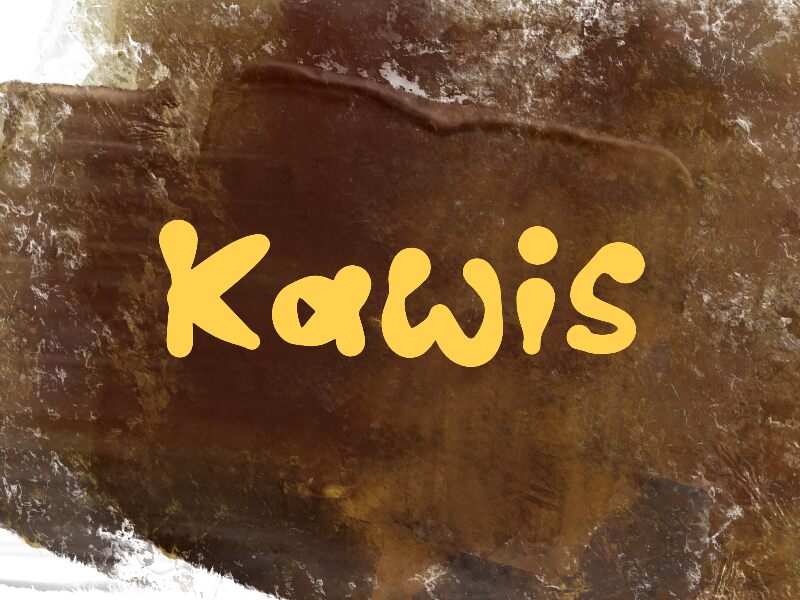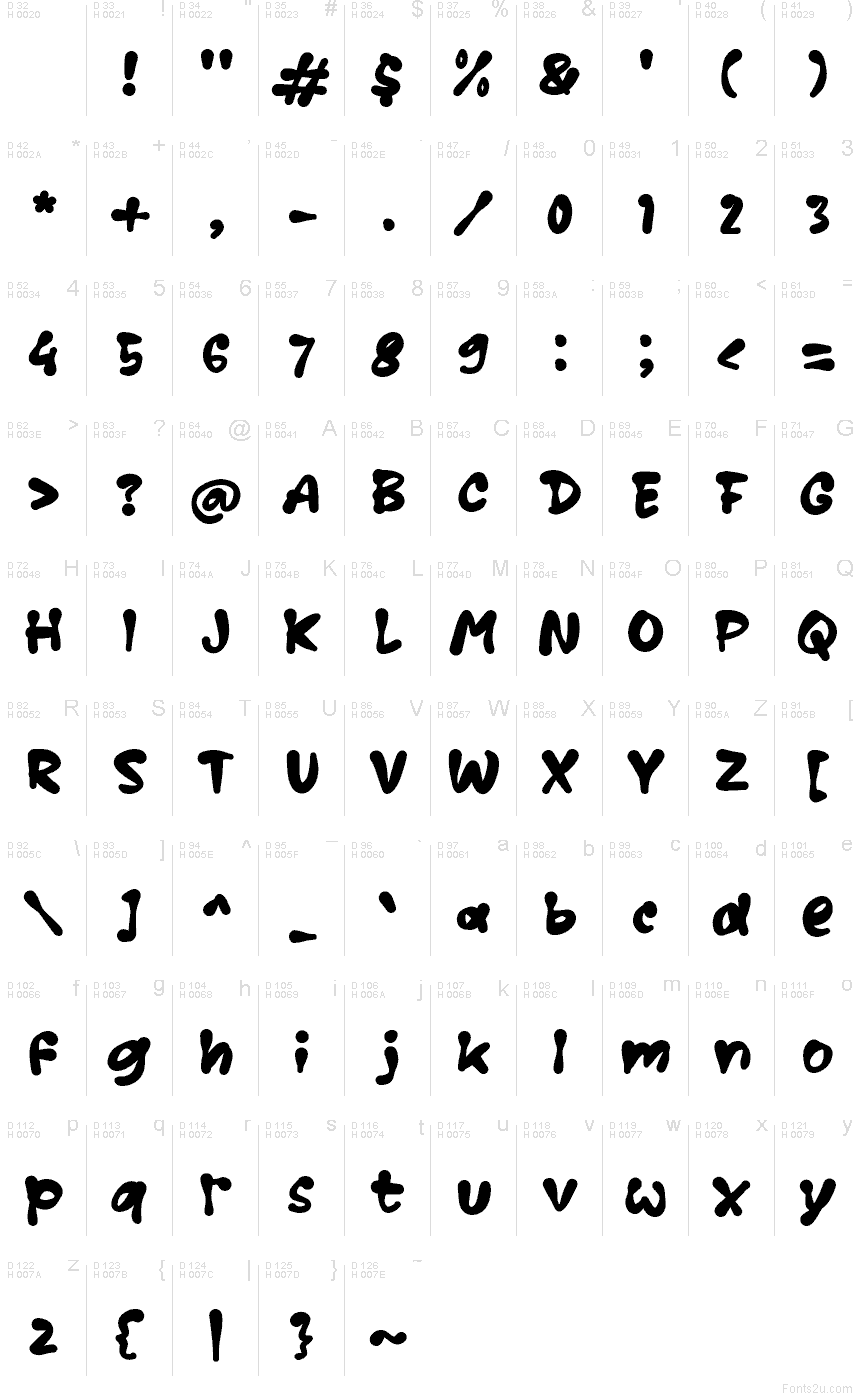
Kawis
Kawis font by wep is a free cartoon display typeface with letters that look like they were piped from a thick marker or a squeeze bottle of paint. Each shape is bold, squishy, and a little wobbly in a friendly way, giving words a bouncy, hand-drawn rhythm. The rounded blobs and tight curves make Kawis feel energetic and informal, like a doodle that jumped off a sketchbook and onto the page.
Using Kawis, headlines and logos instantly feel playful and approachable, making this free font a natural fit for children’s books, toy packaging, ice cream or snack branding, party invitations, social media graphics, and quirky merchandise. It shines at large sizes where its inky, organic curves can really breathe. Pair Kawis with a simple geometric sans in smaller text to keep everything readable while letting its cartoon personality take center stage.